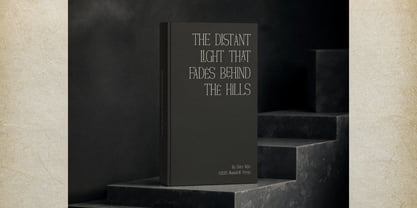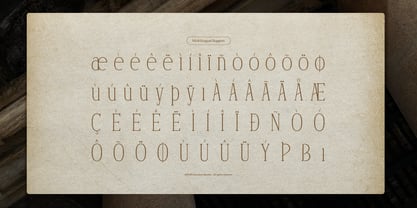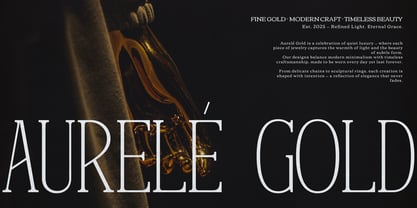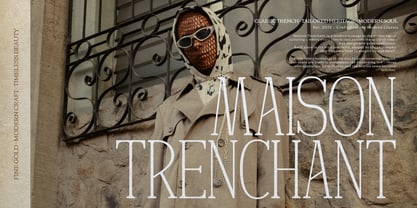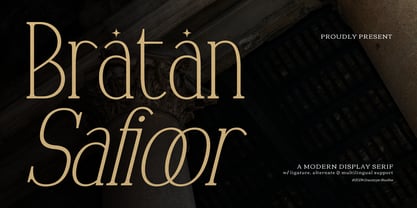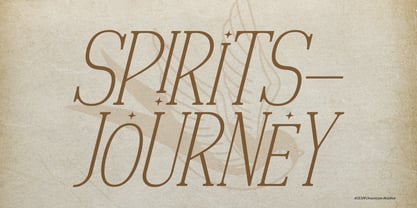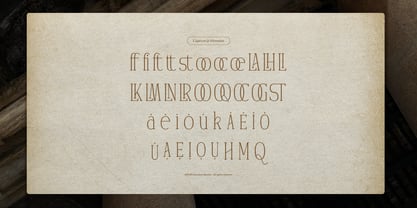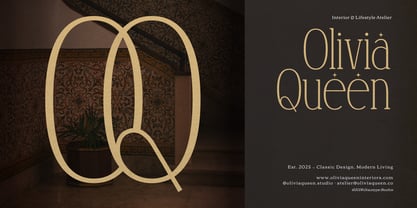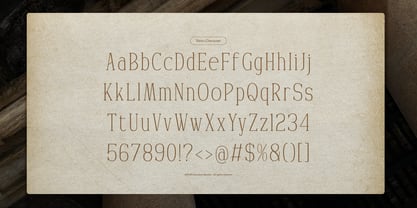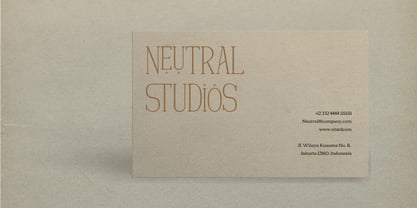
Bratan Safioor
The Bratan Safioor Font Family was designed by and published by Tini Fitriani. Bratan Safioor contains 2 styles and family package options. More about this family
Bratan Safioor | Modern Display Serif, from Gracetypestudio, suitable for any projects such as: logos, branding projects, homeware designs, product packaging, mugs, quotes, posters, shopping bags, t-shirts, book covers, name card, invitation cards, greeting cards, label, photography, watermark, special events, and all your other lovely projects that need a Serif taste.